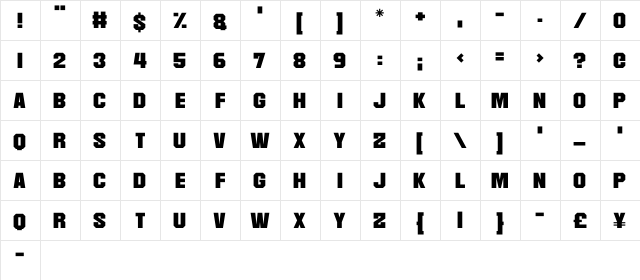
Martian Robotics Regular
Design Context for Martian Robotics Typeface
Martian Robotics offers clean, dependable letterforms without strong stylistic allegiance, making it a practical choice for designers who need flexibility.